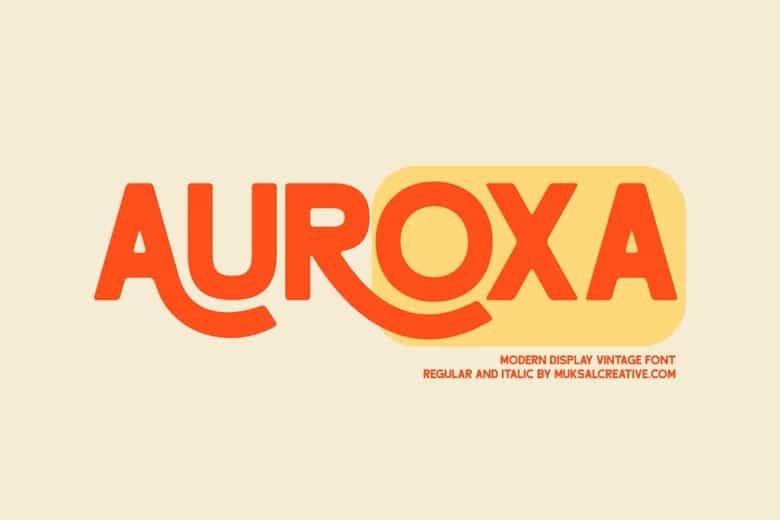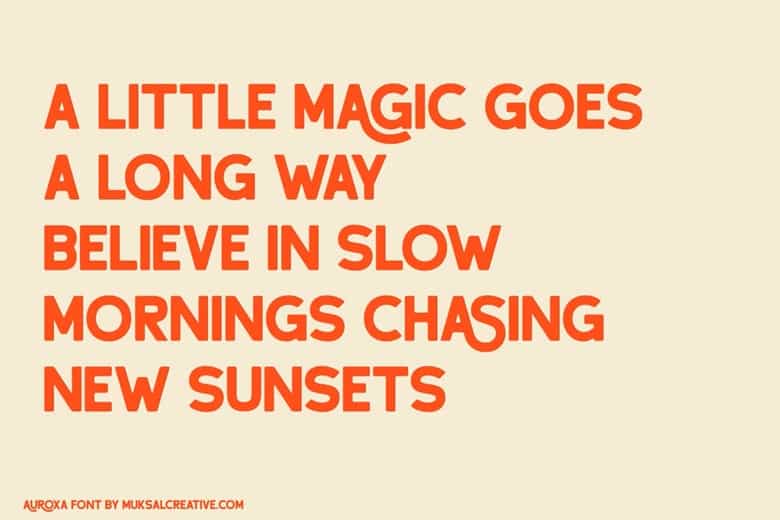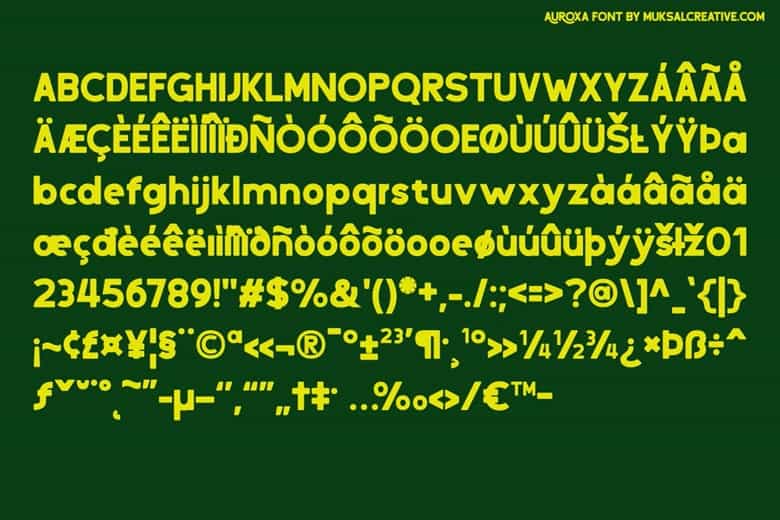
Auroxa Font
Auroxa is an adventurous retro contemporary sans serif type that succeeds in not just mixing retro style with modern charm. It has its strong curves and its unique ligatures and type, making it a perfect typeface to use when branding needs personality and presence. Auroxa layout is also created by taking into consideration old age signages and old commercial product boxes and vintage typography of the middle 20 th century that has the vintage feeling with a solid contemporary tone of text.